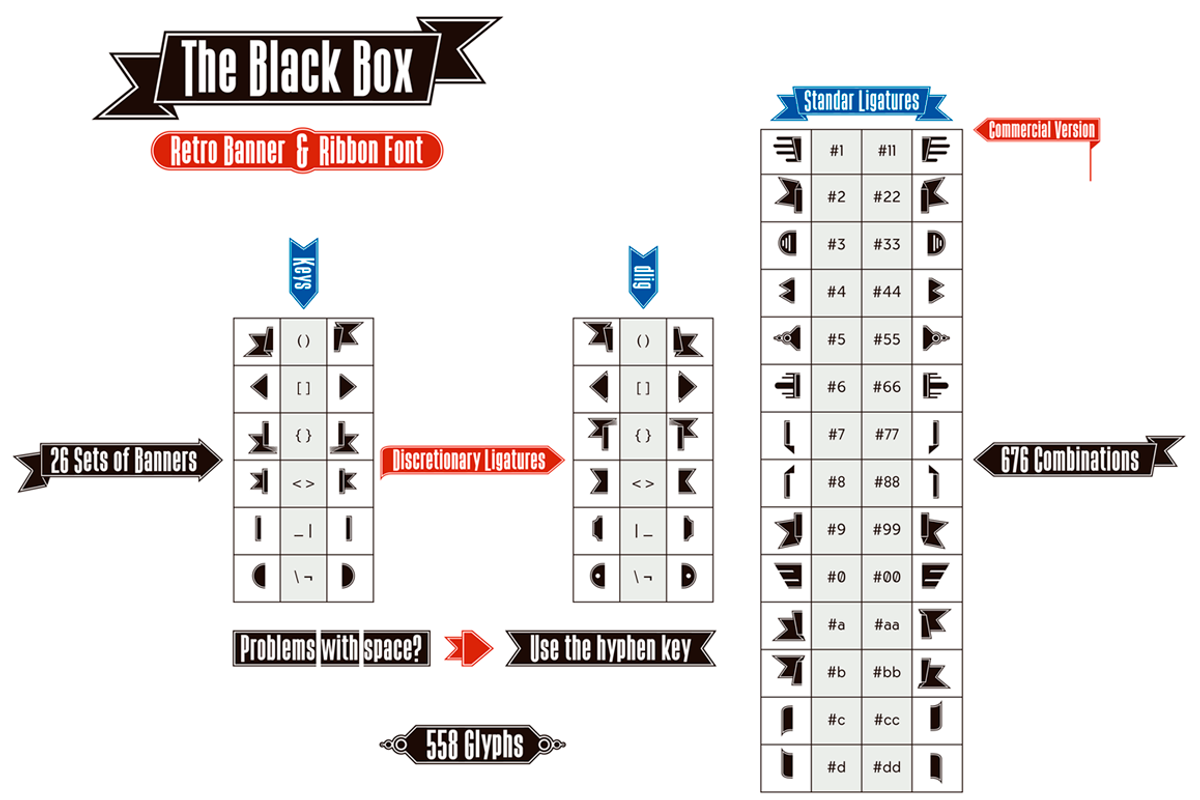
The Black Box -Retro banner font-
The Black Box -Retro banner font- by deFharo is a font selected for branding, posters, packaging, typography.
- The Black Box is a negativ condensed sans font, surrounded by a frame, this frame builds a box with border, the font also contains 26 sets o
- The Commercial version includes: 559 glyphs.
- The Black Box is a negativ condensed sans font, surrounded by a frame, this frame builds a box with border, the font also contains 26 sets o
- The Commercial version includes: 559 glyphs.
- OpenType features compatible with: Photoshop, Illustrator, QuarkXpress, Indesign, Microsoft Word: Standar & Discretionary ligatures, Numbers
- Keys for basic ornaments: () [] {} |¬ Example: (The Black Box) Bitcoin symbol (ligatures): b# Show More
The Black Box -Retro banner font- by deFharo fits naturally into Branding, posters, packaging, typography.